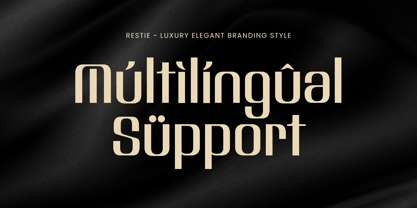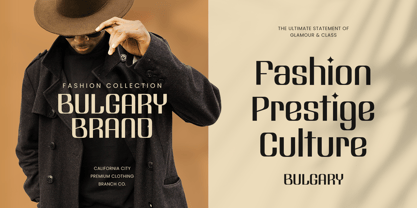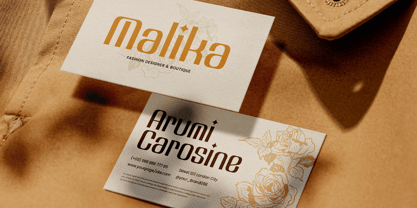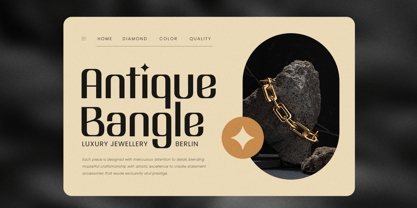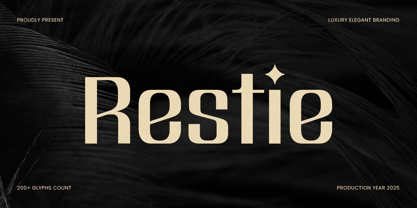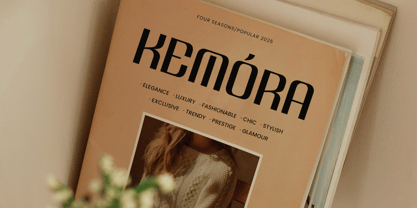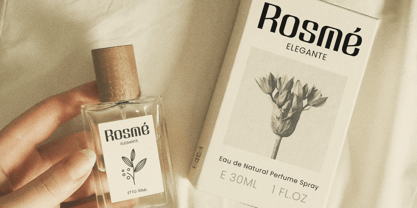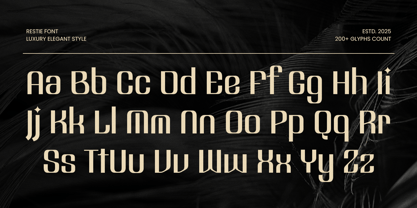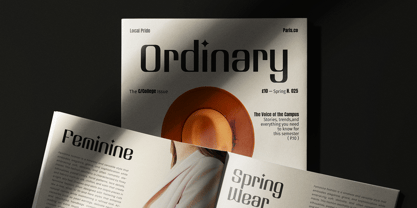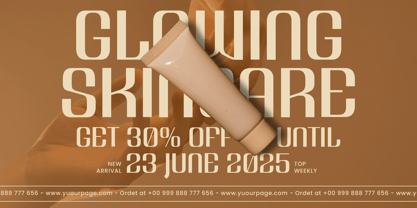
BESTIE is a luxury elegant branding font crafted to embody sophistication and timeless beauty. With its refined curves, balanced contrast, and graceful proportions, this font delivers a polished and modern aesthetic that’s ideal for high-end brands, editorial layouts, and creative identities.
Inspired by editorials and premium packaging, BESTIE combines modern minimalism with classic luxury. Its delicate yet confident letterforms make it perfect for labels, lifestyle brands, beauty products, and wedding stationery — anywhere elegance meets design precision.
Whether used for logos, invitations, magazines, or website headers, BESTIE enhances every composition with a sense of exclusivity and modern charm. It’s the perfect typeface for designers seeking both refinement and versatility.
Elegant serif font for luxury and branding
Perfect for logos, packaging, invitations, and editorials
Modern letterforms with high contrast and graceful details
Timeless and versatile for both print and digital design
Uppercase, lowercase, numerals, and punctuation included
OpenType features for advanced typographic creativity
Restie